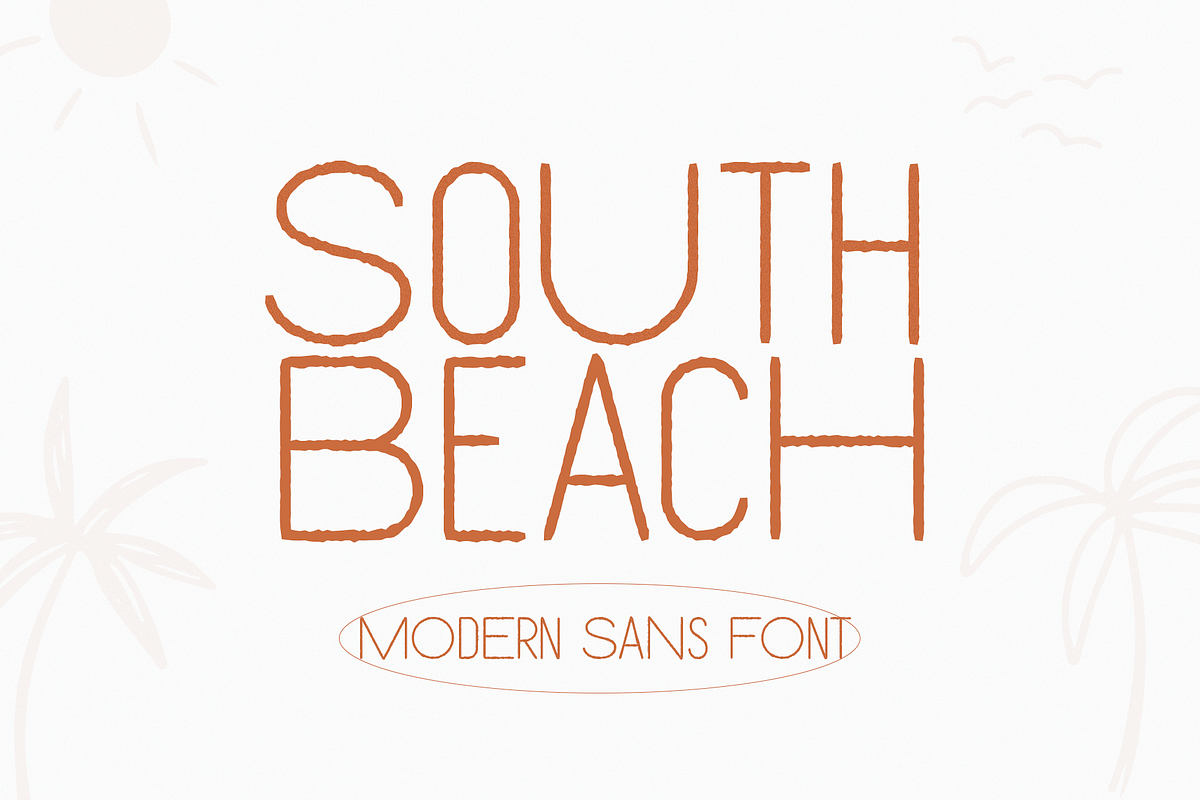
South Beach | Textured Sans Font Free Download
South Beach – Textured Sans Font Free Download
South Beach – Textured Sans Font Free Download is a modern and bold sans-serif typeface with a unique, distressed texture that adds character and depth to your designs. Perfect for branding, posters, fashion logos, magazine headers, and social media content, this font blends the clean lines of a sans-serif with a raw, textured finish for a trendy, urban vibe.
With its strong presence and vintage feel, South Beach – Textured Sans Font Free Download brings a sense of authenticity and style to any project. Its versatile design works well for both large displays and smaller body text, making it ideal for contemporary designs with a bit of grit.